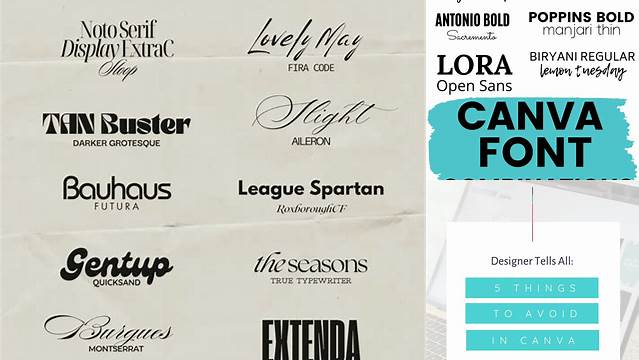
Canva Font Fails: Avoid These Design Disasters!
Hey guys! Ever feel like your Canva design looks...off? Like something's just not quite right? Chances are, your font choices might be the culprit. Choosing the wrong font can be a total design disaster, turning your masterpiece into a mess. So, let's dive into the world of Canva fonts horror and learn how to avoid these common pitfalls. We're gonna explore everything from font pairing nightmares to readability roadblocks, ensuring your next design is a visual victory, not a font faux pas. Get ready to ditch the design dread and embrace font fabulousness! It’s all about making your designs pop for the right reasons, you know? No one wants their amazing message to get lost in a sea of terrible typography.
H2: Common Font Mistakes in Canva
So, what are these common font mistakes we're talking about? Well, there are a few biggies that designers often stumble upon. One of the most frequent is using too many fonts. It's like a visual cacophony! Sticking to two or three complementary fonts is generally the way to go. Another error is choosing fonts that are just plain hard to read. If your audience can't decipher your message, what's the point? Think readability, folks! Consider the size, spacing, and overall legibility of your font. And then there's the issue of font pairing. Some fonts just clash, creating a jarring and unprofessional look. It’s like wearing stripes and polka dots – sometimes it works, but most times, it's a fashion face-off! We’ll delve deeper into specific examples of these font fails and how to steer clear of them. Think of it as your font survival guide – essential for navigating the often-treacherous terrain of typography. Let’s make sure your designs are saying the right things, in the right way.
H2: Overusing Script Fonts in Canva
Ah, script fonts! They can be so elegant and eye-catching, but they're also a bit like that high-maintenance friend – beautiful, but easily overwhelming. Overusing script fonts is a classic Canva mistake. While a touch of script can add flair, plastering it all over your design can quickly turn it into an illegible jumble. Imagine trying to read a whole paragraph in cursive – your eyes would be screaming! Script fonts are best used sparingly, for headings, titles, or short, impactful phrases. Think of them as the jewelry of your design – a little sparkle goes a long way. For body text, stick to clear, readable sans-serif or serif fonts. This ensures your message is delivered without straining your reader's eyes. So, remember, script fonts are lovely, but restraint is key. Let’s keep those designs classy and readable, guys!
H2: Font Pairing Nightmares to Avoid
Font pairing is an art, and like any art form, there are some definite no-nos. Some font combinations are simply... disastrous. Think Comic Sans paired with Times New Roman – shudders. It's a clash of styles that just doesn't work. A general rule of thumb is to avoid pairing fonts that are too similar, as this can look unintentional and boring. Conversely, avoid fonts that are wildly different, as this can create visual chaos. Look for fonts that complement each other, with contrasting yet harmonious styles. For example, a bold sans-serif heading often pairs well with a classic serif body text. Or a clean sans-serif with a slightly more decorative script (used sparingly, of course!). It's all about finding that visual balance. We’ll explore some specific font pairing nightmares to avoid and, more importantly, some winning combinations to try. Let’s turn those font faux pas into font fabulous!
H2: Readability Issues with Canva Fonts
What's the point of a beautiful design if nobody can read it? Readability issues are a major concern when choosing fonts in Canva. Fancy, intricate fonts might look stunning, but if your audience is squinting and struggling to decipher your message, you've missed the mark. Factors like font size, letter spacing, and line height all play a crucial role in readability. Too small a font size? Impossible to read. Too little letter spacing? Letters crammed together. Too tight line height? A wall of text. It's all about creating a comfortable reading experience. Choose fonts that are clear and legible, even at smaller sizes. Pay attention to spacing and line height to give your text room to breathe. And always, always test your designs on different devices to ensure they're readable across the board. Let’s make sure your message is crystal clear, guys! No eye strain allowed!
H2: Font Size Problems in Canva Designs
Font size is a surprisingly critical element in design. Too small, and your message is lost. Too big, and it overwhelms the design. It's a Goldilocks situation – you need to find that just right size. The ideal font size depends on a variety of factors, including the font style, the length of the text, and the viewing platform. Body text generally needs to be larger than captions or labels. Headings, of course, should be the most prominent. Consider the context too. Is your design for a social media post, a poster, or a presentation? The font size will need to be adjusted accordingly. And always remember to test your designs at different sizes to ensure readability. What looks great on your computer screen might be illegible on a mobile device. So, pay attention to font size, guys! It's a key ingredient in a successful design. Let’s make sure your message is seen, loud and clear!
H2: Line Height and Letter Spacing Problems
Okay, let’s talk about the often-overlooked heroes of typography: line height and letter spacing. These two elements can make or break the readability of your text. Line height, the vertical space between lines, can drastically impact how easily the eye flows through the text. Too little line height, and the lines squish together, creating a dense, uninviting block. Too much, and the text feels disjointed. Similarly, letter spacing, the space between individual letters, can affect readability. Too little spacing, and the letters blur together. Too much, and the words feel fragmented. The key is to find the sweet spot, where the text is comfortable to read and visually appealing. Canva offers tools to adjust both line height and letter spacing, so experiment until you find the perfect balance. Trust your eyes, guys! They’ll tell you when it feels right. Let’s make your text a pleasure to read!
H2: Kerning Issues in Canva Typography
Kerning! It sounds a bit like a sci-fi villain, but it’s actually a crucial aspect of typography. Kerning refers to the spacing between individual characters in a font. Sometimes, the default spacing between letters can look a bit wonky, creating awkward gaps or overlaps. Think of the classic example of the letters “AV” – often, they need to be kerned closer together to look balanced. Canva offers some basic kerning adjustments, allowing you to fine-tune the spacing between letters and create a more polished, professional look. It might seem like a small detail, but kerning can make a big difference in the overall appearance of your text. Pay attention to those letter pairings, guys! A little kerning goes a long way in creating a refined design.
H2: Color Contrast and Font Readability
Color contrast is a fundamental principle of design, and it’s especially critical when it comes to font readability. If your text color is too similar to your background color, your message will be lost in the noise. Imagine trying to read white text on a light gray background – eye strain city! The greater the contrast between your text and background, the easier it is to read. Dark text on a light background is generally the safest bet, but you can also experiment with light text on a dark background, as long as the contrast is strong. Canva’s color picker makes it easy to experiment with different color combinations, but always prioritize readability. Don’t let a trendy color palette compromise your message, guys! Make sure your text pops!
H2: Using Too Many Font Styles
We touched on this earlier, but it's worth reiterating: using too many font styles is a design sin. It's like throwing a party and inviting everyone you've ever met – chaotic and overwhelming! Sticking to a limited palette of fonts, typically two or three, creates a more cohesive and professional look. Each font in your design should serve a purpose. One font for headings, another for body text, and perhaps a third for accents or calls to action. Too many fonts create visual clutter and distract from your message. Think of your font choices as a harmonious ensemble, not a solo act. Choose fonts that complement each other and work together to create a unified design. Keep it simple, guys! Less is often more in the world of typography.
H2: Ignoring Font Hierarchy in Designs
Font hierarchy is the art of visually organizing your text to guide the reader's eye. It's about using different font sizes, styles, and weights to create a clear structure and highlight important information. Headings should be the largest and most prominent, followed by subheadings, and then body text. This creates a visual hierarchy that helps readers quickly scan and understand your message. Ignoring font hierarchy can lead to a confusing and disorganized design. If everything is the same size and weight, nothing stands out, and your message gets lost. Think of font hierarchy as a roadmap for your design, guiding the reader through the information in a logical way. Lead the eye, guys! Make it easy for your audience to grasp the key takeaways.
H2: Using Trendy Fonts Excessively
Trendy fonts can be tempting, but they're a bit like fast fashion – they look great for a season, but then they're so last year. Using trendy fonts excessively can quickly date your designs. While it's fine to incorporate a trendy font here and there, relying on them too heavily can make your work look generic and fleeting. Classic, timeless fonts are always a safe bet. They're like that little black dress – always in style. Choose fonts that are versatile and readable, and that will stand the test of time. You can always add a touch of trendiness with other design elements, like color or imagery. Don't let your fonts be a fashion victim, guys! Aim for timeless elegance.
H2: Neglecting Font Licensing and Usage Rights
Okay, let’s talk about the not-so-glamorous but super important stuff: font licensing and usage rights. Just like images and music, fonts are often protected by copyright. Using a font without the proper license can land you in legal hot water. Canva offers a wide selection of fonts, and many of them are free for commercial use. However, it's always a good idea to double-check the licensing terms, especially if you're using a font outside of the Canva platform. Some fonts may require a separate license for commercial projects. It's better to be safe than sorry, guys! Protect yourself and respect the rights of font designers. Do your homework and ensure you're using fonts legally.
H2: Using Default Canva Fonts Too Often
Canva has a fantastic library of fonts, which is both a blessing and a curse. It’s easy to fall into the trap of using default Canva fonts too often. While these fonts are perfectly fine, relying solely on them can make your designs look a bit generic and uninspired. Branch out, guys! Explore the vast world of typography beyond the default options. Experiment with different font pairings and styles to create a unique look for your brand. There are tons of hidden gems within Canva’s font library, just waiting to be discovered. Don’t be afraid to venture beyond the familiar. Your designs will thank you for it!
H2: Ignoring Your Brand Font Guidelines
If you have established brand font guidelines, stick to them! Consistency is key in branding, and your font choices play a significant role in creating a cohesive brand identity. Ignoring your brand font guidelines can dilute your brand and create a confusing message. Your fonts should be instantly recognizable as part of your brand’s visual language. If you don't have brand guidelines, now's a great time to create them! Defining your brand fonts will ensure consistency across all your marketing materials, from your website to your social media posts. Stay true to your brand, guys! Your fonts are part of your story.
H3: Choosing Fonts That Don't Match Your Brand Personality
Your fonts should be a reflection of your brand’s personality. A playful, whimsical brand might opt for a fun, quirky font, while a serious, professional brand might choose a classic, elegant typeface. Choosing fonts that don't match your brand personality is like wearing a tuxedo to a beach party – it just doesn’t fit the vibe. Consider the tone and message you want to convey with your brand. Are you friendly and approachable? Sophisticated and refined? Your font choices should align with these qualities. Think of your fonts as the voice of your brand, guys! Make sure they’re saying the right things.
H3: Inconsistent Font Use Across Designs
Inconsistent font use across designs is a surefire way to weaken your brand identity. Imagine seeing a logo in different fonts every time you encounter it – confusing, right? The same principle applies to all your design materials. Maintain consistency by using the same font combinations across your website, social media, print materials, and any other visual communication. This creates a strong, recognizable brand presence. Develop a clear font strategy and stick to it. Your audience will appreciate the consistency and professionalism. Be a font stickler, guys! It’s worth it in the long run.
H3: Forgetting About Font Accessibility for All Users
Font accessibility is about making your designs readable for everyone, including people with visual impairments. Forgetting about font accessibility is a major oversight. Choose fonts that are clear and legible, even at small sizes. Ensure sufficient color contrast between your text and background. Avoid using too much text in all caps, as this can be difficult to read. Consider adding alt text to images that contain text, so screen readers can interpret the message. Small adjustments can make a big difference in the accessibility of your designs. Be inclusive, guys! Design for everyone.
H3: Using Fonts That Are Difficult to Read on Mobile Devices
In today’s mobile-first world, it’s crucial to use fonts that are easy to read on mobile devices. What looks great on a large computer screen might be illegible on a small smartphone screen. Using fonts that are difficult to read on mobile devices is a common mistake. Choose fonts that are clear and legible, even at smaller sizes. Test your designs on different devices to ensure readability across the board. Consider increasing the font size and line height for mobile viewing. Mobile readability is non-negotiable, guys! Make sure your message is accessible on the go.
H3: Not Previewing Fonts Before Using Them in Designs
Before committing to a font, always preview it! Not previewing fonts before using them in designs can lead to some nasty surprises. A font might look great in the font list, but appear completely different in your actual design. Canva allows you to easily preview fonts in different sizes and styles. Take advantage of this feature to ensure you’re making the right choice. Preview your fonts, guys! It’s a quick and easy way to avoid font faux pas.
H3: Over-Reliance on Decorative or Display Fonts
Decorative or display fonts can be fun and eye-catching, but they’re best used sparingly. Over-reliance on decorative or display fonts can make your designs look cluttered and unprofessional. These fonts are typically designed for headings or short phrases, not for body text. Stick to classic, readable fonts for your main content. Think of decorative fonts as the sprinkles on a cupcake – a nice touch, but not the main ingredient. Use them wisely, guys! A little goes a long way.
H3: Neglecting the Impact of Font Weight
Font weight, the thickness of the font, can significantly impact the visual appearance of your text. Neglecting the impact of font weight is a missed opportunity to add emphasis and create visual hierarchy. Different font weights, such as bold, semibold, and light, can be used to highlight key information and guide the reader’s eye. Experiment with different font weights to create a more dynamic and engaging design. Font weight is a powerful tool, guys! Use it to your advantage.
H3: Forgetting to Adjust Font Styles for Different Languages
If you’re designing for a multilingual audience, adjusting font styles for different languages is crucial. Forgetting to adjust font styles for different languages can lead to readability issues and cultural insensitivity. Some fonts may not support all characters or scripts. Ensure your font choices are appropriate for the languages you’re using. Consider the cultural connotations of different fonts in different regions. Be mindful of your audience, guys! Design with global awareness.
H3: Ignoring the Importance of Font Pairing Harmony
We’ve touched on font pairing, but it’s worth emphasizing the importance of font pairing harmony. The fonts you choose should work together seamlessly, creating a cohesive and visually appealing design. Ignoring the importance of font pairing harmony can result in a jarring and unprofessional look. Look for fonts that complement each other, with contrasting yet harmonious styles. A classic serif paired with a clean sans-serif is often a winning combination. Find your font soulmates, guys! Create a font family that works in perfect harmony.
H3: Not Using Font Variations Within a Font Family
Most font families offer a range of variations, such as different weights, styles, and widths. Not using font variations within a font family is like only using one color in a painting – you’re missing out on a whole spectrum of possibilities. Font variations can add depth and dimension to your designs, creating visual interest and hierarchy. Experiment with different weights and styles within the same font family to create a cohesive and dynamic look. Embrace the font family, guys! It’s a treasure trove of design potential.
H3: Relying Too Heavily on All Caps for Emphasis
Using all caps for emphasis can be effective in small doses, but relying too heavily on all caps for emphasis can make your text difficult to read and even feel aggressive. Imagine reading an entire paragraph in all caps – your eyes would be screaming! All caps should be used sparingly, for headings or short calls to action. For body text, stick to a mix of uppercase and lowercase letters for optimal readability. All caps is a strong statement, guys! Use it wisely.
H3: Not Saving and Organizing Your Favorite Fonts
Canva allows you to save your favorite fonts for easy access. Not saving and organizing your favorite fonts is a missed opportunity to streamline your design workflow. Creating a collection of your go-to fonts will save you time and effort in the long run. Organize your fonts by style, project, or brand to keep things organized. Build your font library, guys! It’s a valuable design asset.
H3: Avoiding Custom Font Uploads in Canva
While Canva has a great selection of fonts, sometimes you need something truly unique. Avoiding custom font uploads in Canva means missing out on a world of typographic possibilities. Canva allows you to upload your own fonts, giving you complete control over your design’s aesthetic. This is especially useful for branding purposes, as you can ensure your designs are consistent with your brand’s font guidelines. Embrace custom fonts, guys! They can take your designs to the next level.
H3: Failing to Update Fonts When Necessary
Fonts, like all software, sometimes need updates. Failing to update fonts when necessary can lead to compatibility issues and display errors. If you’re using custom fonts, it’s especially important to keep them updated. Outdated fonts can cause your designs to look unprofessional or even render incorrectly. Stay font-fresh, guys! Keep your fonts up-to-date.
So, there you have it! A deep dive into the Canva fonts horror and how to avoid them. By steering clear of these common mistakes, you can create stunning, readable designs that truly shine. Happy designing, guys!